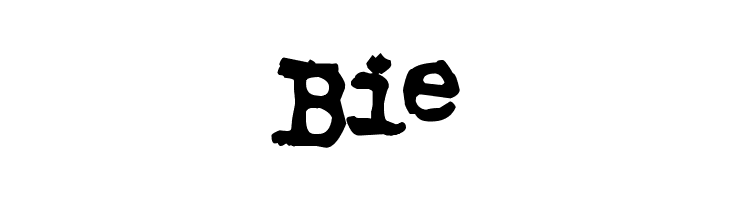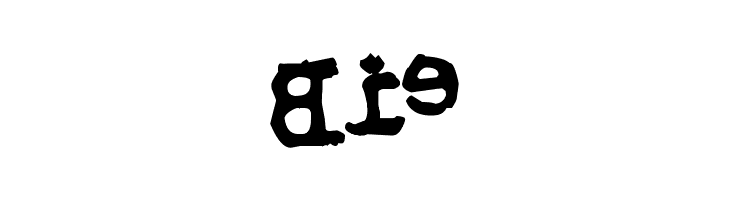
A bold, distressed font with a grunge, textured style.
A bold, distressed font with a grunge, stamped appearance.
A bold, distressed font with a grunge aesthetic and rough edges.
A bold, distressed font with a rough, textured, and grunge-like appearance.
A distressed, grunge-style font with a rough, textured appearance.
A distressed, grunge-style font with a textured, aged appearance.
A distressed, grunge-style font with a rugged, textured appearance.
A bold, distressed font with a grunge, vintage aesthetic.
A distressed, grunge-style font with a vintage, hand-crafted appearance.
A bold, distressed font with a grunge, vintage style.